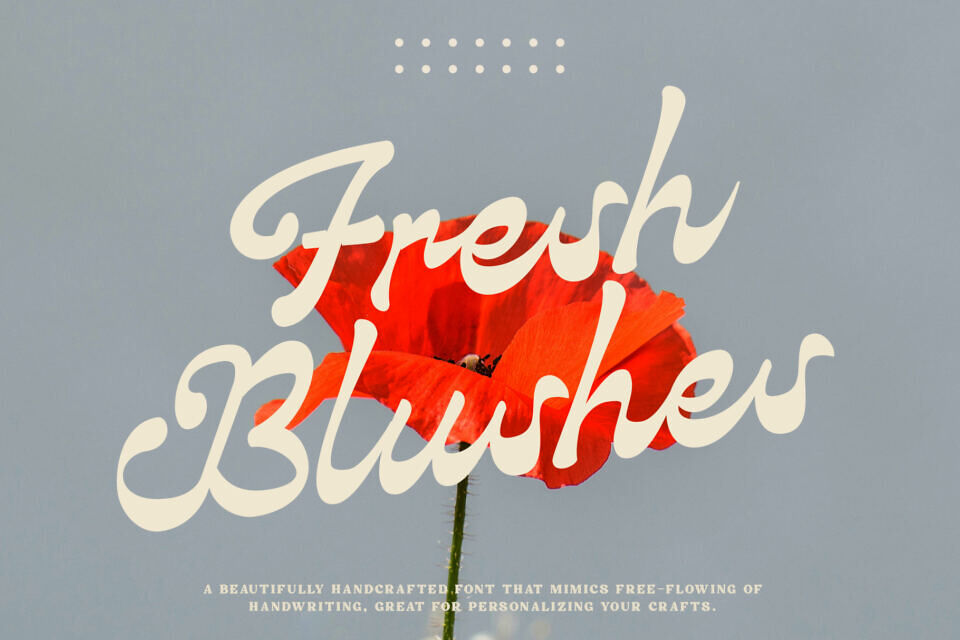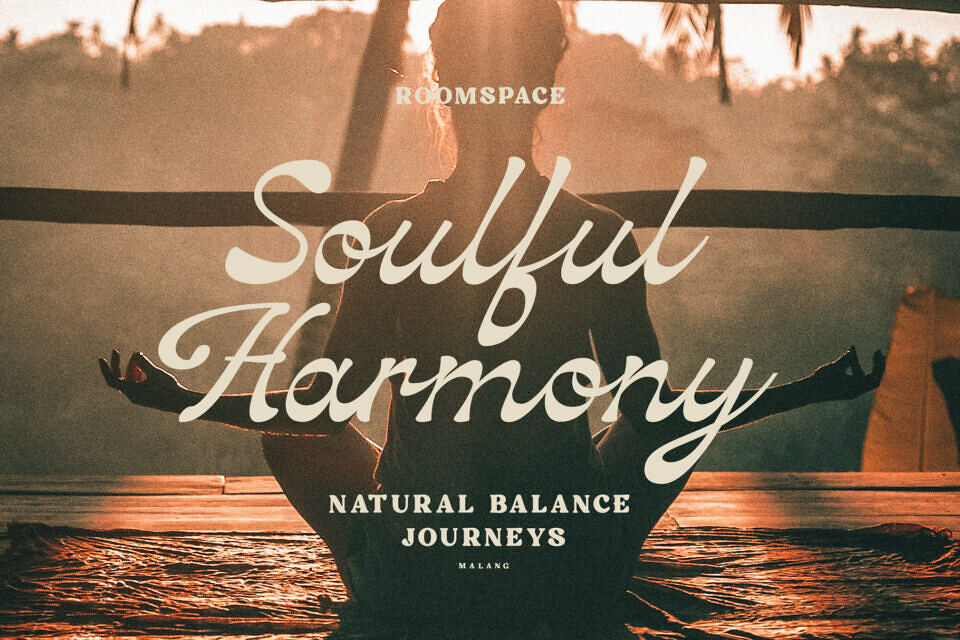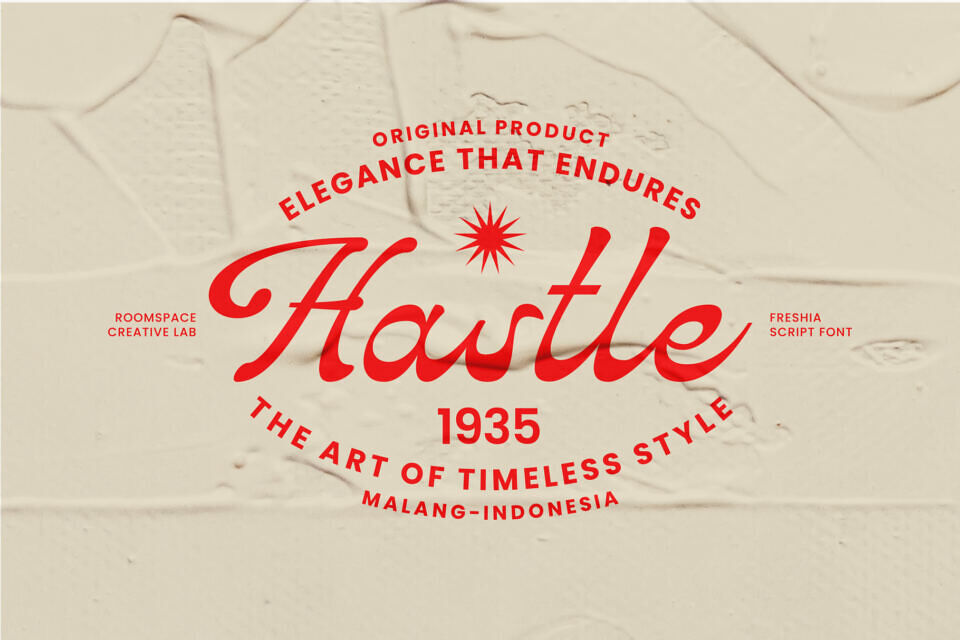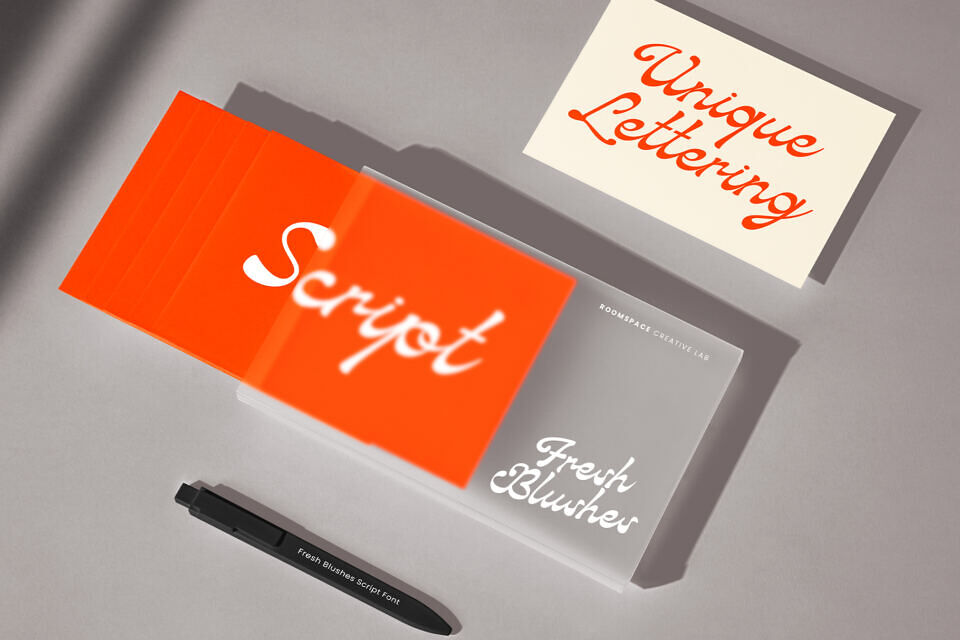
Fresh Blushes Font
Fresh Blushes is a stunning modern script font that embodies clean lines and timeless sophistication, combines contemporary aesthetics with simplicity, making it a versatile option for a wide array of design applications. Its sleek lines and uncluttered letterforms convey a sense of modernity, Crafted with precision and a minimalist touch, Fresh Blushes is your go-to choice for contemporary design projects.
Whether you’re creating logos, branding materials, wedding invitations, or editorial layouts, Fresh Blushes seamlessly adapts to different design contexts, adding a touch of elegance to your projects, With comprehensive multilingual support, Fresh Blushes ensures your message can be conveyed seamlessly across languages and borders.